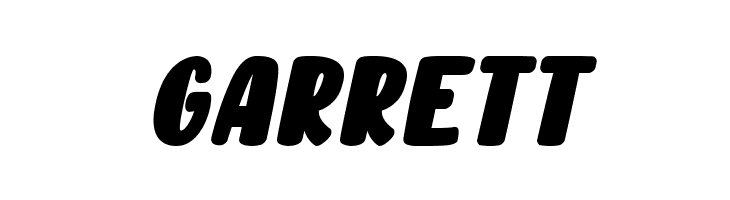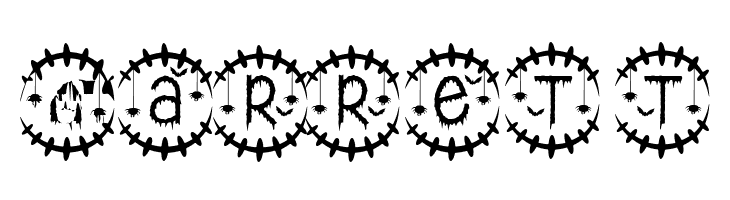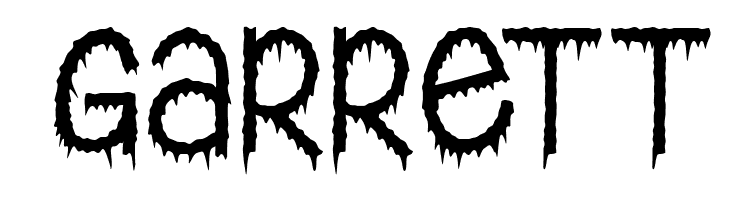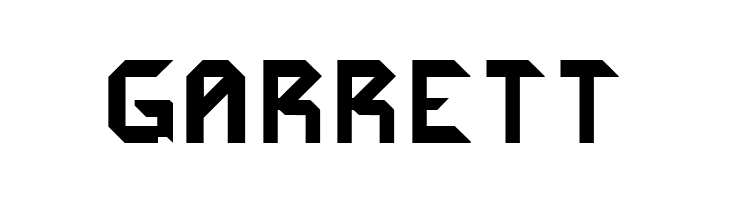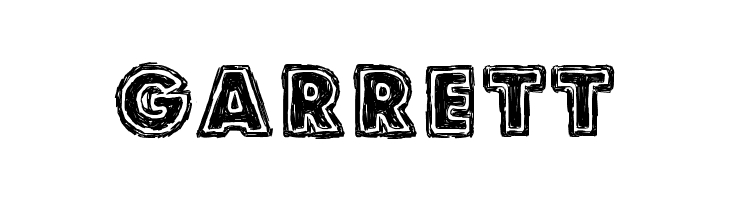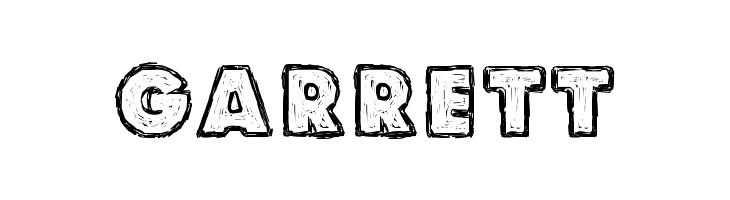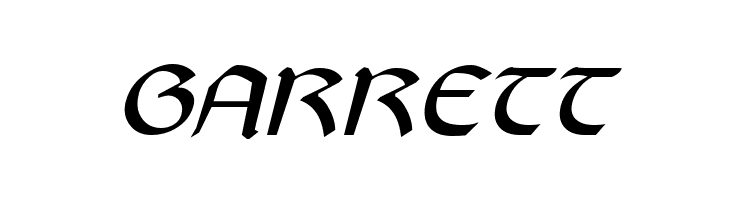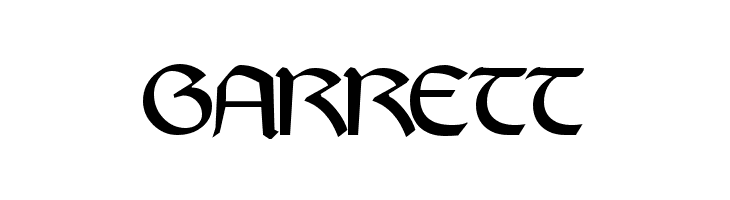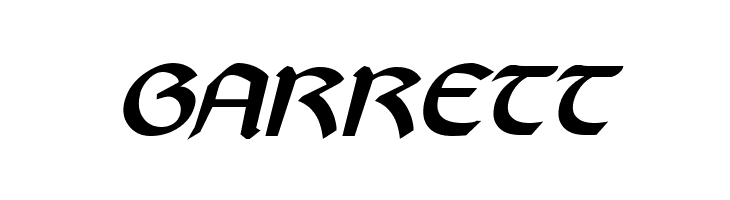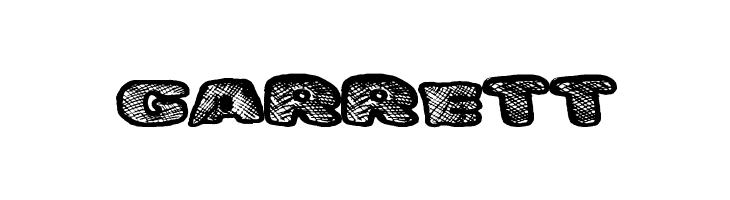
A spooky, dripping font perfect for horror themes.
A spooky, decorative font with a Halloween theme, featuring circular saw borders and crow accents.
A whimsical, hand-drawn font with a quirky, magical style.
A bold, geometric font with vertical line patterns creating a striking optical illusion.
A bold, hand-drawn font with a textured, playful style.
A bold, hand-drawn font with textured, uneven outlines.
A bold, textured, hand-drawn font with a playful and artistic style.
A bold, textured font with a hand-drawn, playful style.
A whimsical and decorative font with intricate curly patterns.
A playful, bold font with rounded edges and a bubbly appearance.
A bold, rounded, and slightly italicized font with a playful and friendly style.
A playful, italicized font with a notebook page background, ideal for creative and informal projects.
A modern, elegant script font with flowing, interconnected strokes.
A bold, jagged font with a shattered glass effect, perfect for impactful designs.
A futuristic, geometric font with bold, angular lines.
A bold, distressed font with a rugged, vintage appearance.
A bold, medieval-inspired font with sharp serifs and angular design.
A bold, italicized font with a calligraphic and dynamic style.
A dynamic and elegant italic font with bold, flowing letterforms.
A playful, casual handwritten font with a doodle-like style.
A bold, angular, and mystical font with sharp edges and high contrast.
A bold, italicized font with sharp, angular, and mystical design.
A playful, handwritten font with a casual and whimsical style.
A casual, handwritten font with a friendly and approachable style.
A lively, cursive handwritten font with fluid strokes and elegant connections.
A whimsical, playful font with bold curves and enchanting flourishes.
A playful, textured font with a hand-drawn, sketch-like appearance.
A bold, eclectic font with a rebellious, punk-inspired aesthetic.
A bold, playful font with irregular, edgy characters and a dynamic, energetic feel.
A bold, playful handwritten font with a casual and friendly style.